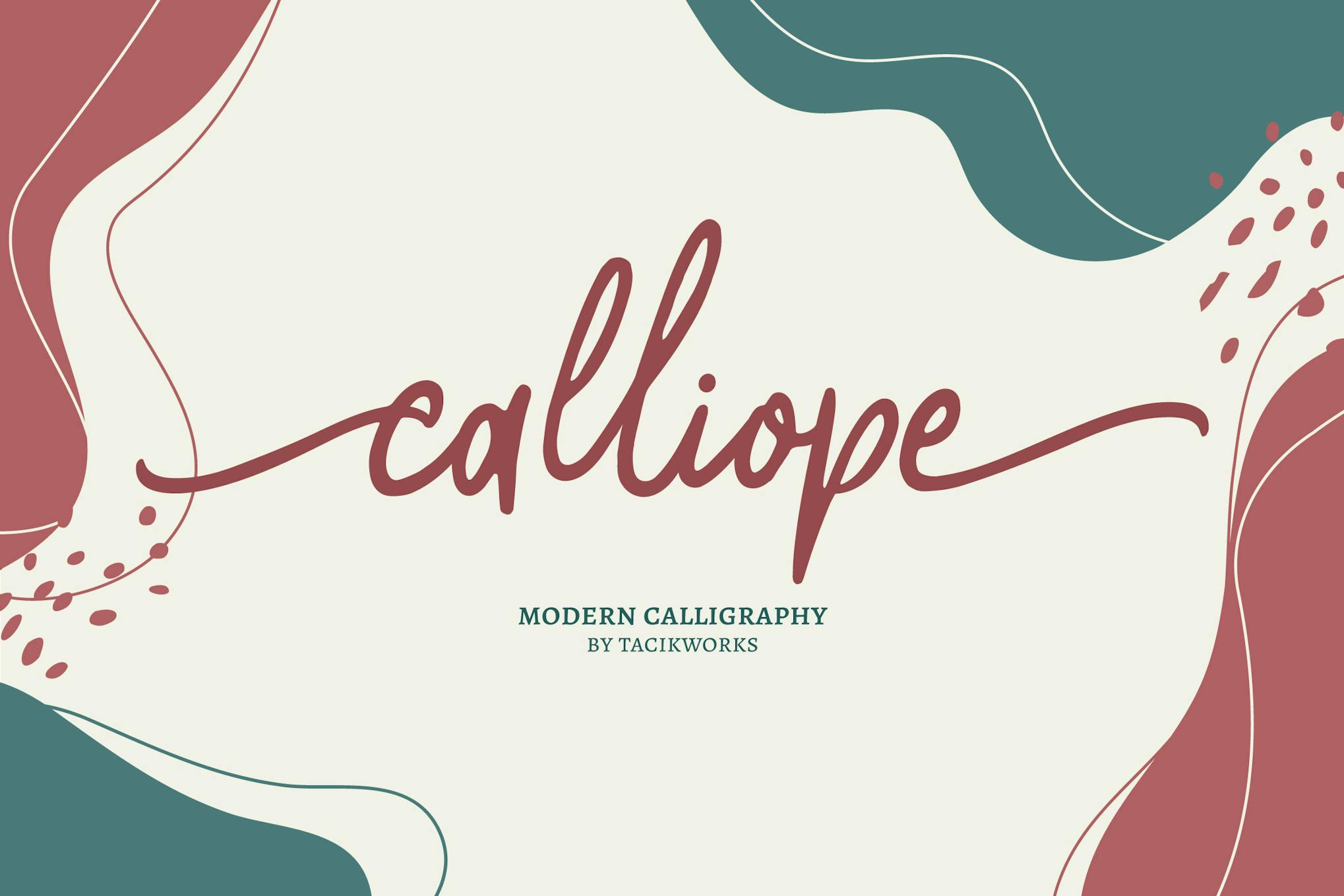
Calliope - Modern Calligraphy Wedding Font
The Calliope - Modern Calligraphy Wedding Font excels in contemporary design applications including modern wedding invitations, contemporary bridal branding, stylish ceremony logos, modern product packaging, contemporary business cards, stylish portfolios, modern greeting cards, contemporary social media graphics, stylish event signage, and modern marketing materials. Its modern calligraphy style makes it perfect for projects requiring contemporary elegance that communicates modern sophistication and establishes stylish brand positioning with audiences seeking contemporary wedding experiences and modern calligraphy.
What makes the Calliope - Modern Calligraphy Wedding Font truly exciting is its exceptional ability to capture the contemporary beauty and modern sophistication of stylish weddings through innovatively crafted calligraphic letterforms. The font features flowing, modern strokes with contemporary flourishes and stylish proportions that create a distinctly contemporary appearance. Each character displays remarkable attention to modern detail with contemporary curves, stylish connections, and modern spacing that give text a beautifully contemporary, hand-lettered quality. The font's modern character and contemporary rhythm create an atmosphere of stylish elegance while maintaining modern sophistication and wedding authenticity.
The Calliope - Modern Calligraphy Wedding Font family typically includes regular weight with extensive character coverage, featuring uppercase and lowercase letters, numerals, punctuation marks, and international characters. The typeface often incorporates stylistic alternates, contextual ligatures, and modern swashes that enhance its signature contemporary appeal. These additional elements provide designers with creative flexibility to customize text appearance and achieve more natural-looking modern handwriting that reflects the font's contemporary and stylish character.
This contemporary signature font distinguishes itself through its remarkable balance of modern charm and sophisticated elegance. Unlike traditional or outdated fonts that lack contemporary appeal, Calliope - Modern Calligraphy Wedding Font embraces the power of modern design to create stylish connections with contemporary wedding audiences. The font's modern character makes it essential for contemporary wedding planners, stylish brands, and modern celebration businesses where creating contemporary wedding experiences and modern memories is fundamental to success in stylish wedding markets.